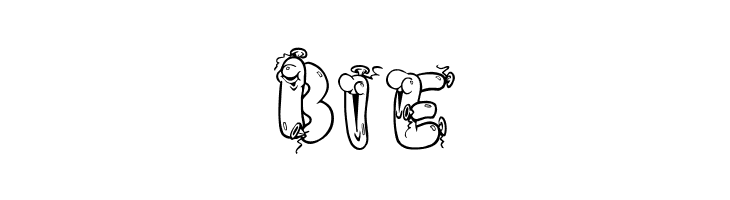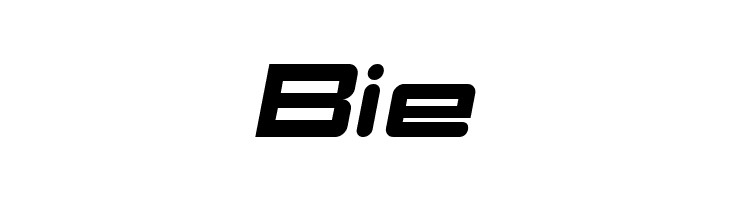
A bold, distressed, and condensed font with a rugged, edgy aesthetic.
A bold, distressed font with a grunge aesthetic and dynamic rotation.
A bold, distressed 3D font with a rugged, stone-like appearance.
A bold, distressed font with a grunge aesthetic and expanded width.
( Fonts by Des Gomez )
A playful, hand-drawn font with quirky, irregular strokes and a whimsical style.
A bold, distressed font with a playful, hand-drawn appearance.
( Fonts by Vanessa Bays - bythebutterfly.com )
A sketch-like, hand-drawn font with dynamic, jagged strokes.
A bold, playful font with hand-drawn, whimsical strokes.
A decorative font with fragmented, abstract letterforms for a dynamic look.
( Fonts by Andrew Hart - dirt2.com )
A bold, distressed font with tall, narrow letterforms and a gritty, weathered texture.
A bold, jagged font with an edgy, rebellious style.
A bold, artistic font with a dripping paint effect, ideal for creative projects.
A playful, hand-drawn font with scratchy, textured lines.
A bold, textured font with a playful, distressed style.
( Fonts by Luedecke Design Font Co. - ldfonts.weebly.com )
A rugged, textured font with a splintered wood appearance.
A bold, distressed font with a grunge aesthetic and rugged texture.
A bold, grunge-style font with a splattered, distressed appearance.
( Fonts by Bumbayo Font Fabrik - bumbayo.blogspot.com )
A bold, distressed font with a vintage, grunge aesthetic.
( Fonts by David Kerkhoff - www.hanodedphotography.com )
A distressed, grungy font with splatter and drip effects for an edgy look.
( Fonts by David Kerkhoff - www.hanodedphotography.com )
A bold, gritty font with splattered, distressed strokes and a chaotic artistic vibe.
( Fonts by David Kerkhoff - www.hanodedphotography.com )
A chaotic, distressed font with erratic strokes and a rebellious aesthetic.
A bold, distressed font with a grungy, urban style.
A bold, distressed font with a grunge, spray-painted look.
A playful, distressed font with jagged edges and a bold appearance.
( Fonts by Steve Cloutier - www.cloutierfontes.ca )
A distressed, grunge-style font with a rebellious and edgy appearance.
( Fonts by Steve Cloutier - www.cloutierfontes.ca )
A bold, distressed font with a grunge aesthetic and textured, worn-out edges.
A scratchy, hand-drawn font with dynamic, textured strokes.
A bold, geometric font with a futuristic and industrial design.
A distressed, eclectic font with a vintage ransom note style.
( Fonts by Khrys Bosland )
A playful, textured font with a hand-drawn, chalk-like effect.